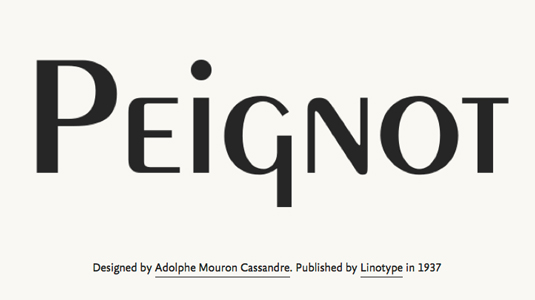
Greatest fonts countdown: 63 - Peignot
We're counting down the 100 greatest typefaces in existence. Here is number 63...
FontShop AG, the renowned type foundry, conducted a survey based on historical relevance, sales at FontShop.com, and aesthetic quality. With a few additions from the experts at Creative Bloq and Computer Arts magazine, the best fonts ever were selected for the new book, 100 Best Typefaces Ever.
But without further ado, here is the 64th best typeface…
63. Peignot
Adolphe Mouron Cassandre was born in the Ukraine in 1901. He went to school in Paris, where he passed his Baccalauréat with distinction at the Lycée Condorcet and discovered his passion for poster design.
In 1919 he won third place in a competition organised by Michelin. The poster ‘Au Bucheron’, designed in 1923 for the large Paris furniture store Hachard & Cie, was distributed throughout Paris and made the artist famous overnight.
From then on – on the advice of a friend – Mouron went by the name of A. M. Cassandre. His first typeface, Bifur, was designed for use in advertising and established his international reputation in 1929. At the Paris World Fair in 1937, he released another successful typeface, Peignot.